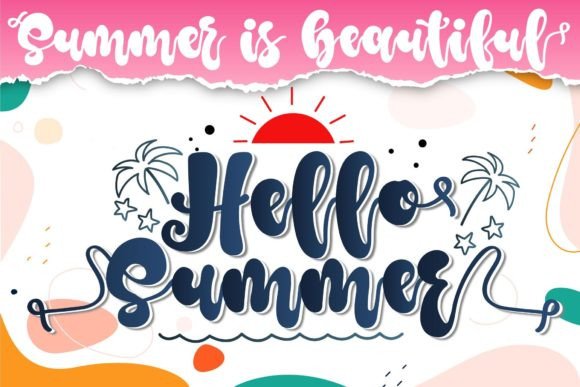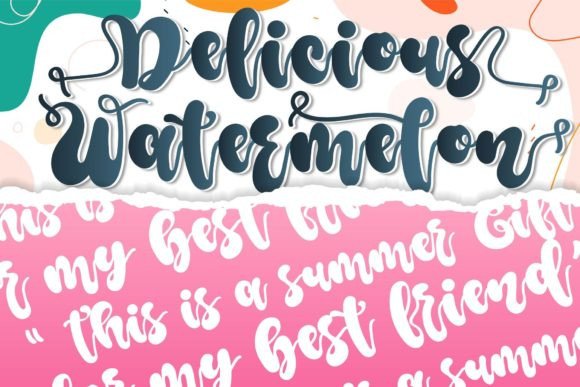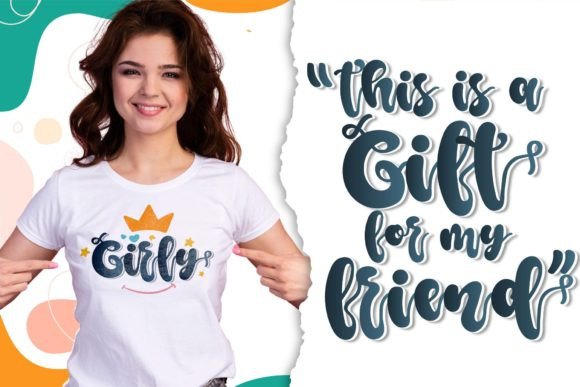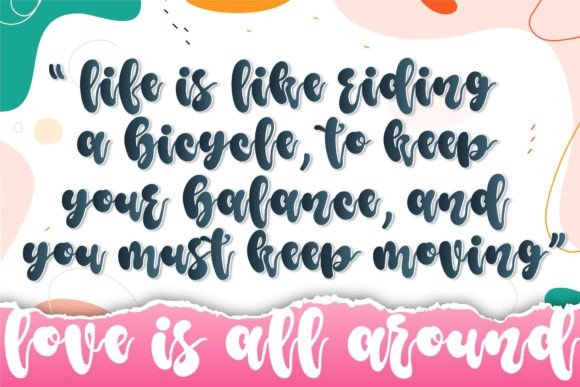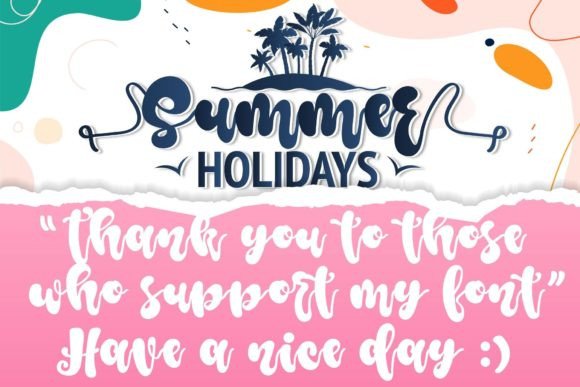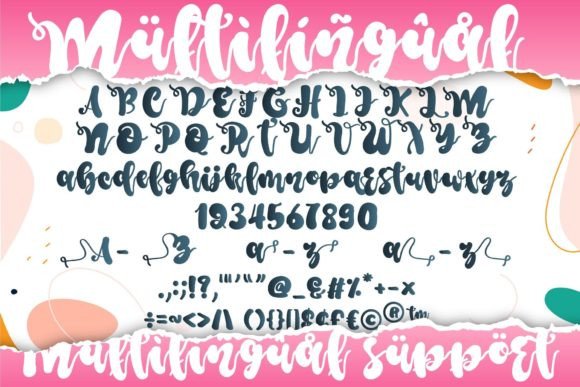
Girly Font: The Ultimate Choice for Elegant Designs
Are you a designer or crafter looking for a font that can add a touch of elegance and sophistication to your creations? Look no further than the Girly font, a lovely and timeless handwritten font that is perfect for creating eye-catching logos, branding, and quotes.
What Makes Girly Font So Special?
The Girly font is a beautifully crafted handwritten font that features a unique and beautiful touch in every letter. Its elegant and flowing lines make it perfect for designs that require a touch of sophistication and glamour. Whether you’re creating a logo, branding materials, or quotes, the Girly font is sure to make your design come alive!
Key Features of Girly Font
- Unique and Beautiful Touch: Every letter in the Girly font has a unique and beautiful touch that sets it apart from other fonts.
- PUA Encoded: The Girly font is PUA encoded, which means you can access all of the glyphs and swashes with ease.
- Elegant and Timeless: The Girly font features elegant and timeless designs that will never go out of style.
- Versatile: The Girly font is perfect for a wide range of designs, from logos and branding to quotes and more.
Why Choose Girly Font?
There are many reasons why designers and crafters choose the Girly font for their projects. Here are just a few:
- Ease of Use: The Girly font is easy to use and can be accessed with ease, thanks to its PUA encoding.
- High-Quality Design: The Girly font features high-quality designs that are sure to impress.
- Unique Look: The Girly font has a unique look that sets it apart from other fonts.
- Timeless Appeal: The Girly font has a timeless appeal that will never go out of style.
How to Use Girly Font in Your Designs
Using the Girly font in your designs is easy. Here are a few tips to get you started:
- Use Swashes and Glyphs: Use the swashes and glyphs available in the Girly font to add a touch of elegance to your design.
The Girly font is perfect for designers and crafters who are looking for a font that can add a touch of elegance and sophistication to their creations. Whether you’re creating logos, branding materials, or quotes, the Girly font is sure to make your design stand out.
| Font Name | Girly Font |
| Author | Nobu Collections |
In conclusion, the Girly font is a lovely and timeless handwritten font that is perfect for creating eye-catching logos, branding, and quotes. Its unique and beautiful touch, PUA encoding, and elegant designs make it a popular choice among designers and crafters. Whether you’re looking for a font that is easy to use, has a high-quality design, or has a timeless appeal, the Girly font is the perfect choice.